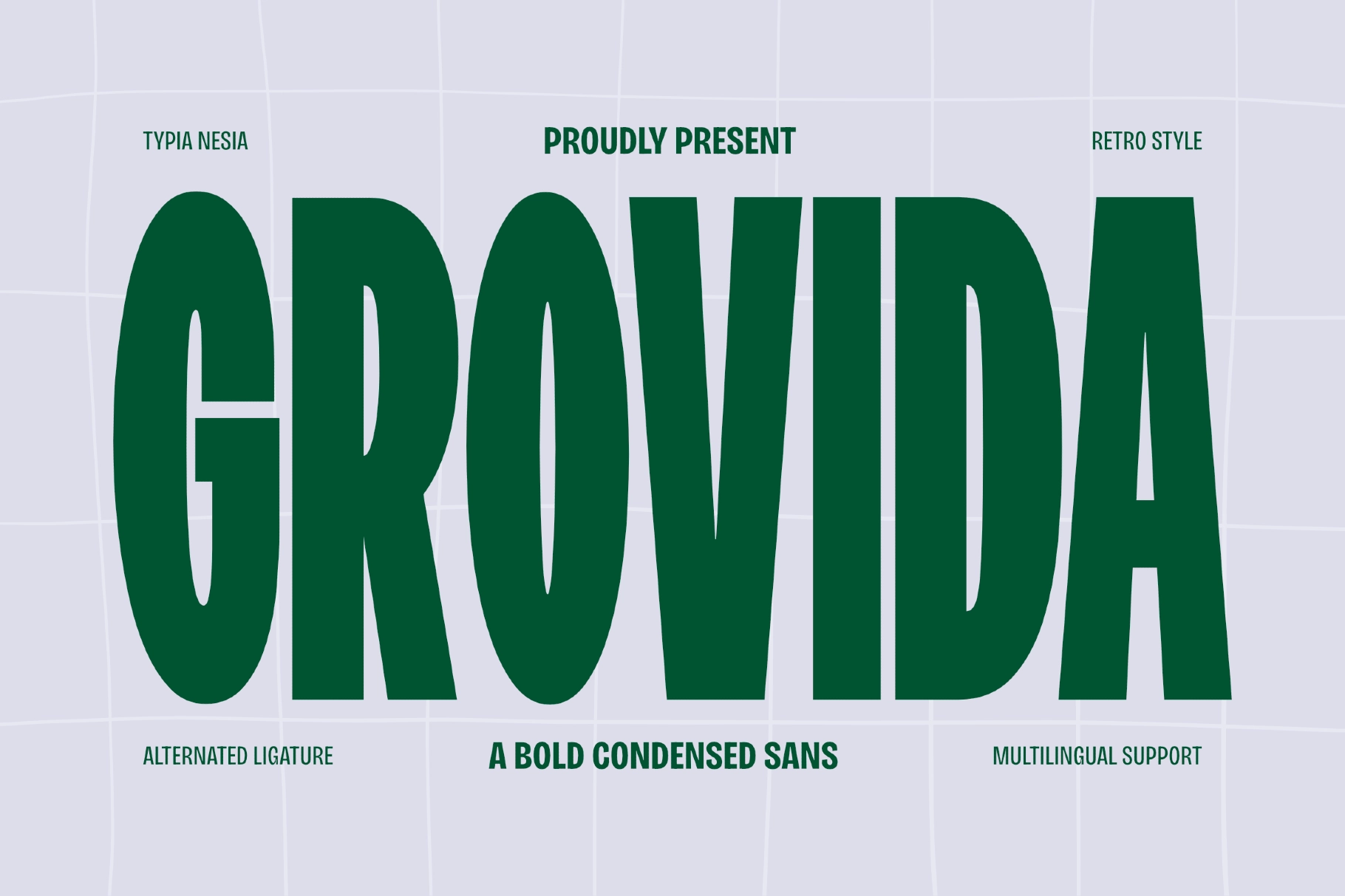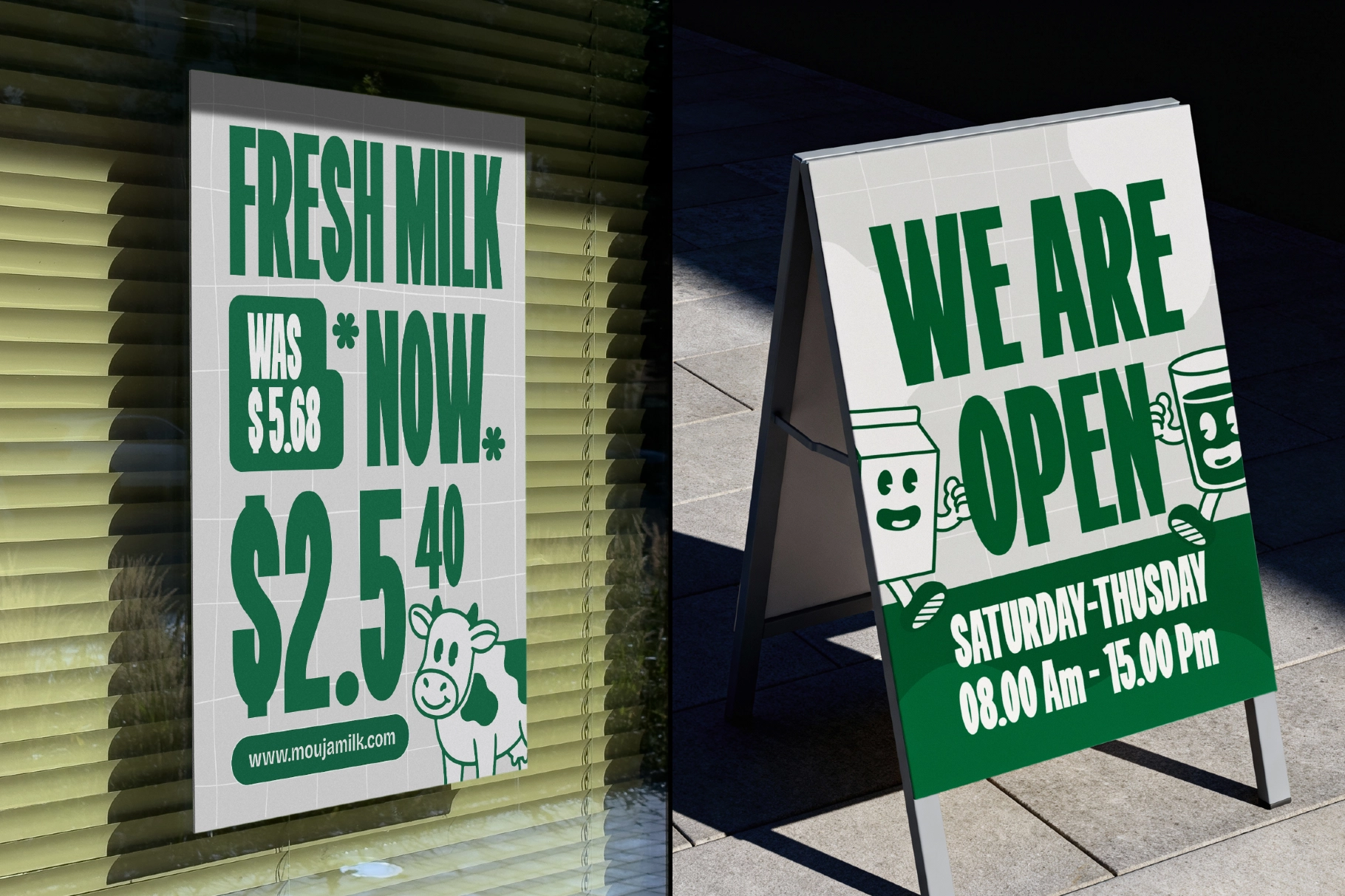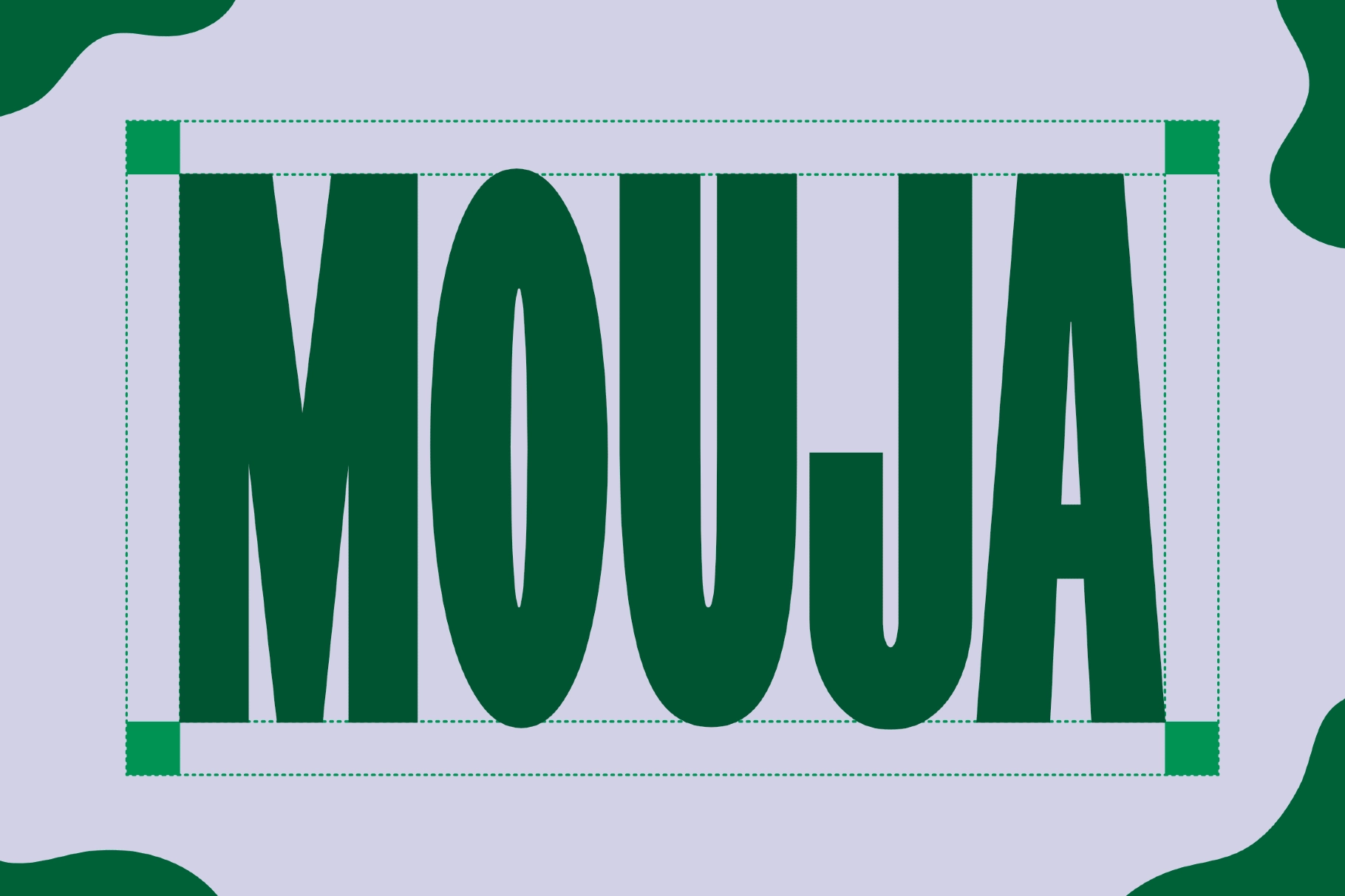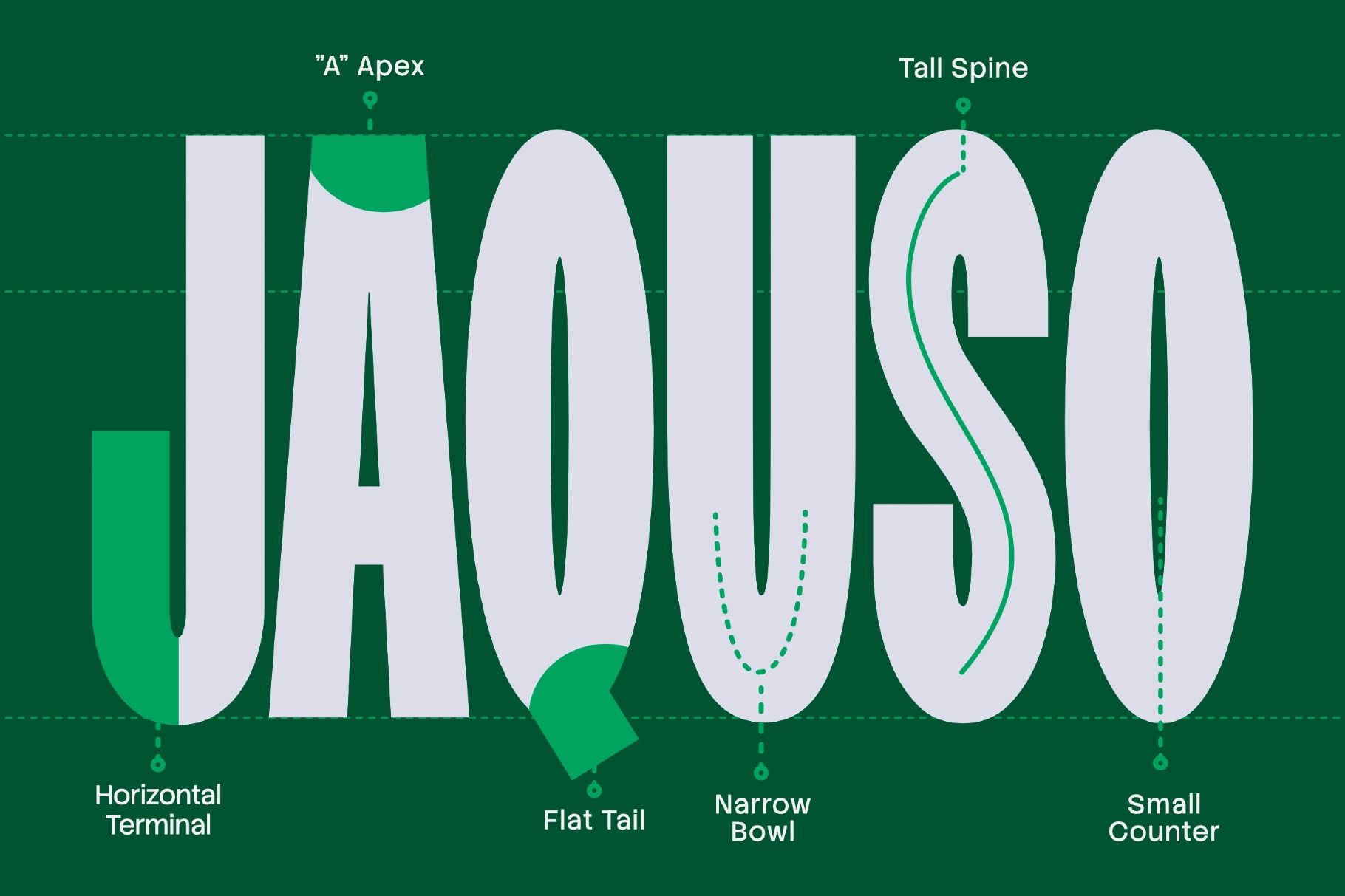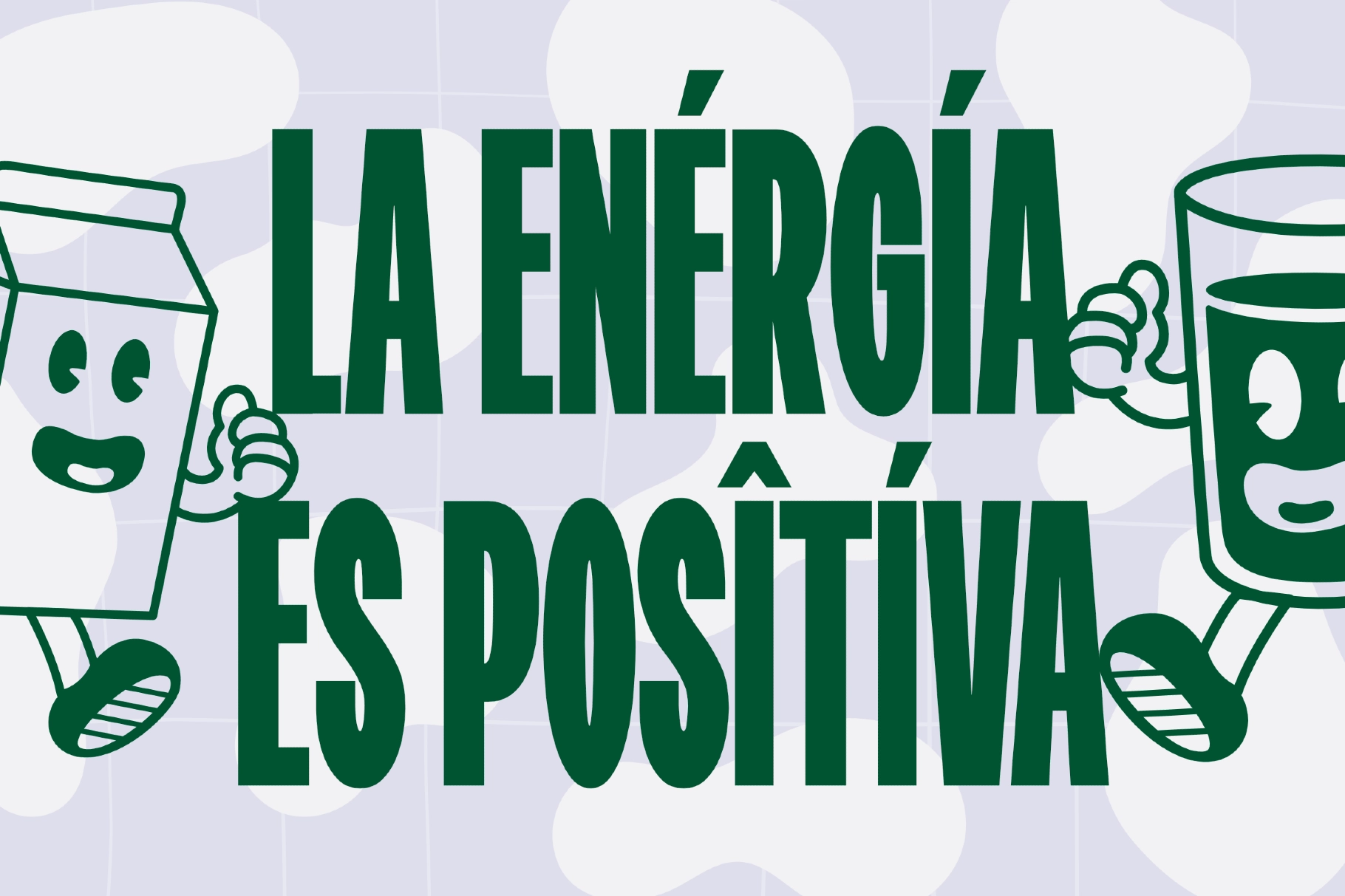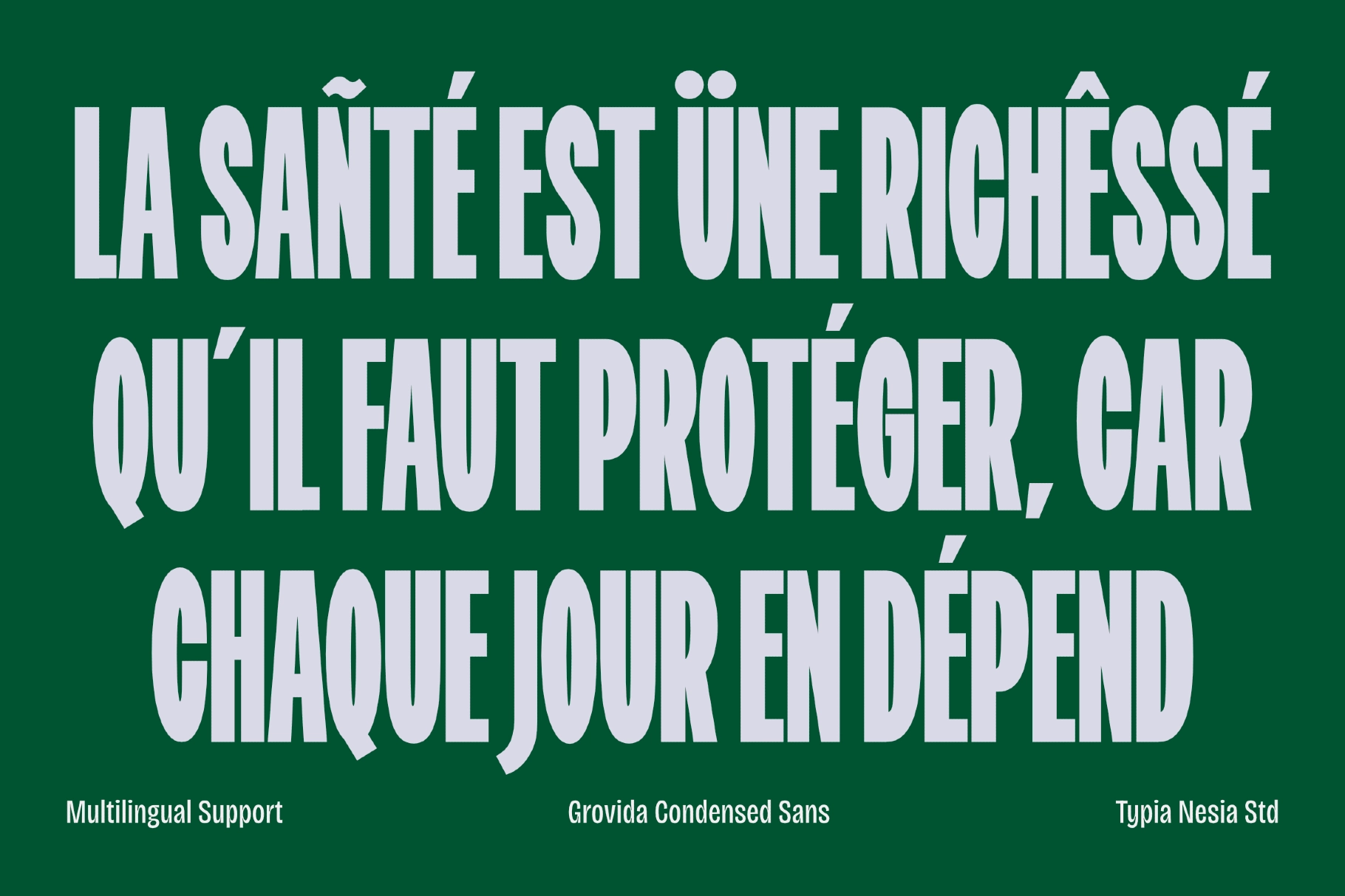
Grovida - Bold Retro Condensed Sans Font
Grovida
Grovida stretches every letter tall and narrow, with sturdy strokes and a flat, confident stance that reads like hand-painted shop lettering from a vintage grocery sign. An alternated ligature set lets specific letter pairs lock together for a tighter, more custom feel in headlines.
The face holds full multilingual support and stays legible even at aggressive condensed widths, making it equally at home on a milk carton or a storefront banner. Use it for branding and packaging, product labels, posters, café and restaurant identities, advertising campaigns, and social media graphics.